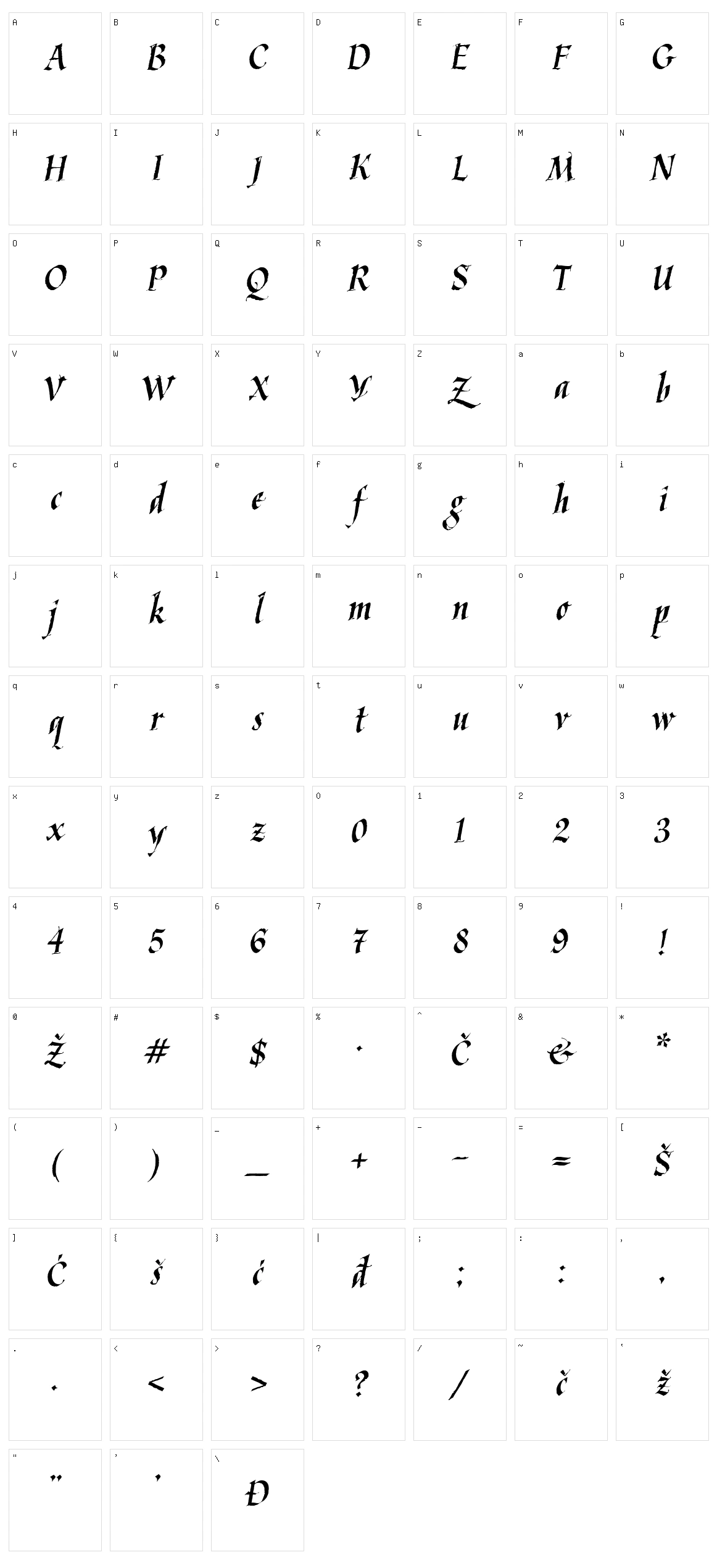
The free font Kaligraf Latin + Cyr is carefully designed by Posterizer KG, showcasing a thoughtful balance of creativity and usability and falls under the Script font style. When you download the ZIP file, it contains only 287.82 KB of font files, making it lightweight and quick to download. Please review the license details below to understand permitted usage and distribution rights. If license information is not available, we recommend using this font for personal projects only or contacting the author directly for commercial usage permissions.